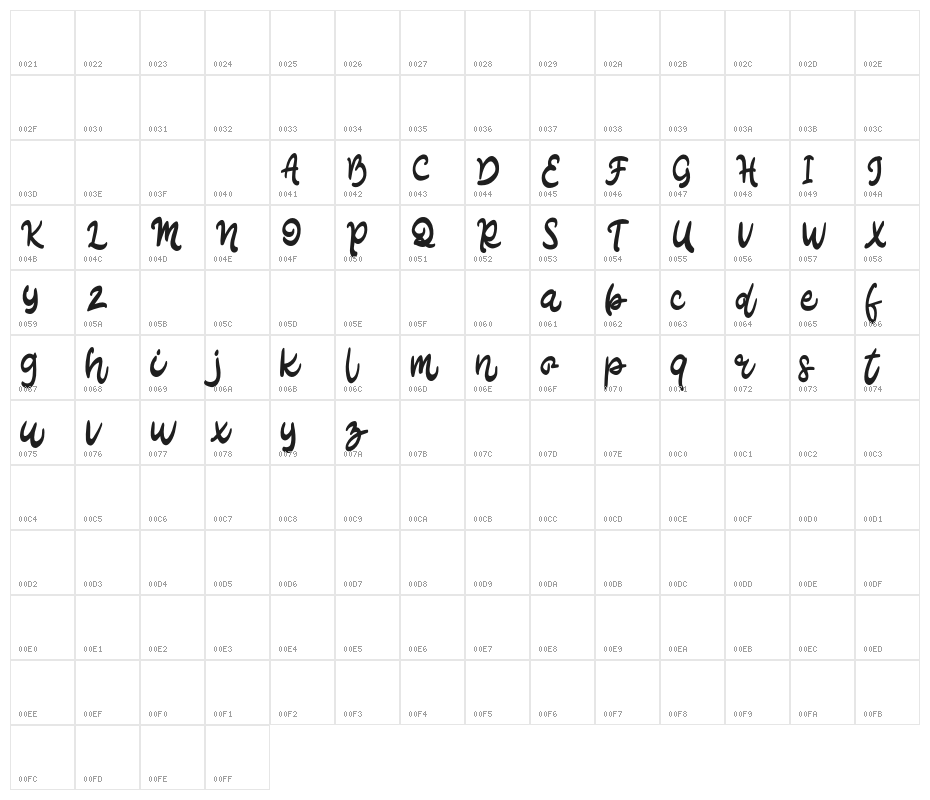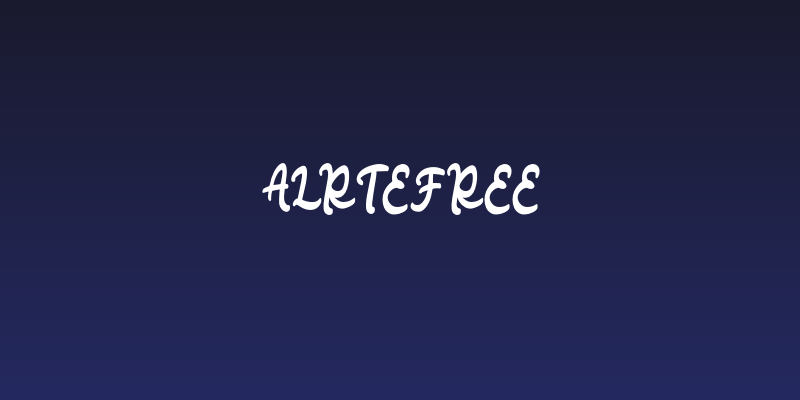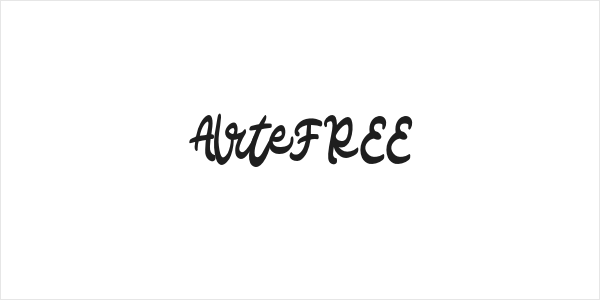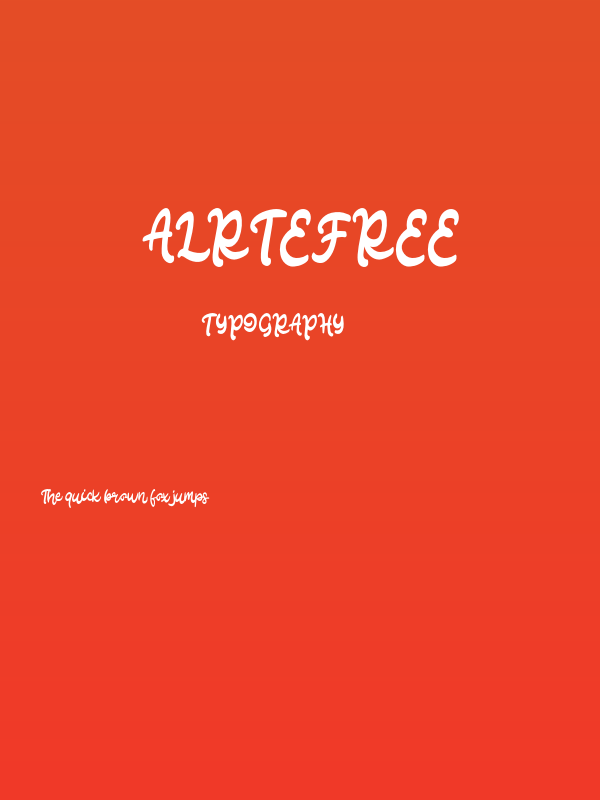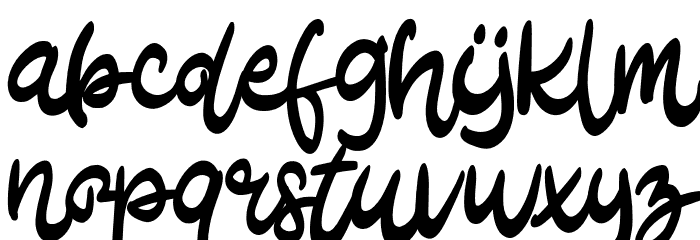
AlrteFREE Font
AlrteFREE Description
This font features a bold, cursive style with a playful and energetic appearance. The characters are interconnected, giving it a flowing, handwritten look. The strokes are thick and consistent, providing a strong visual impact. The uppercase letters maintain a uniform height, while the lowercase letters have a slight slant, enhancing the dynamic feel. The overall design is smooth and rounded, with a friendly and approachable vibe. This font is ideal for projects that require a personal touch or a creative flair.
| Proposed Projects | Ideal for greeting cards, invitations, logos, and creative branding projects. |